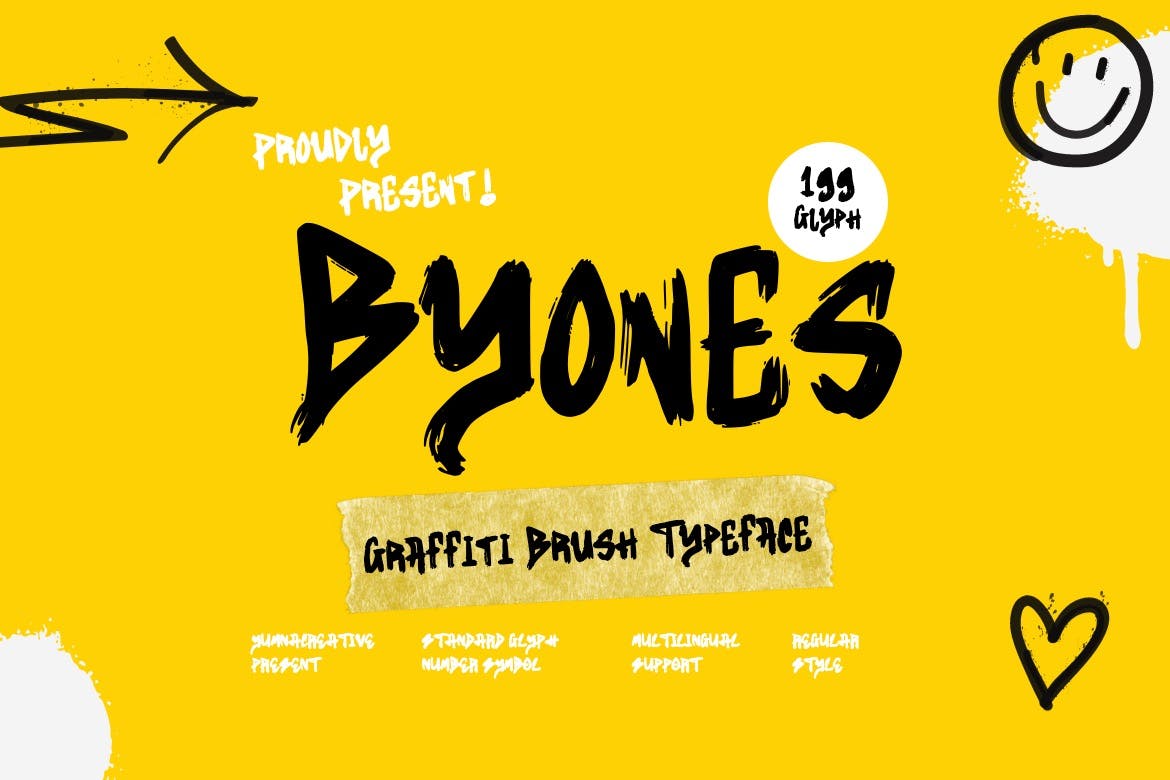
Byones - Graffiti Brush Font
The Byones - Graffiti Brush Font is perfect for street art murals, urban music branding, edgy fashion campaigns, underground event graphics, hip-hop album covers, skateboard designs, graffiti-style logos, street culture posters, rebellious youth marketing, and alternative lifestyle brands.
What makes the Byones - Graffiti Brush Font so exciting is its dynamic fusion of authentic graffiti culture with expressive brush stroke energy that creates an irresistible combination of street credibility and artistic spontaneity. This striking typeface features bold brush movements, raw paint textures, and aggressive character formations that perfectly capture the unfiltered creativity and rebellious spirit of underground street art. The font's energetic personality and authentic graffiti heritage make it an exceptional choice for brands seeking to communicate urban authenticity, creative rebellion, and genuine street culture connection with powerful visual impact.
The Byones - Graffiti Brush Font family includes brush variations and graffiti alternates, featuring multiple stroke intensities, paint splatter effects, and street-inspired character options. Each variation maintains the signature graffiti brush appeal while offering different levels of artistic chaos and urban authenticity, giving designers extensive creative possibilities for crafting bold street expressions and authentic urban communications.
This exceptional Byones - Graffiti Brush Font Free Download represents the perfect street art typography solution for designers who need authentic graffiti brush aesthetics that resonate with urban culture and creative communities. Whether you're developing underground music brands, creating street art campaigns, or designing rebellious youth marketing materials, this versatile graffiti brush font delivers compelling results that connect with audiences seeking genuine street authenticity and creative freedom.
The powerful brush characteristics of Byones - Graffiti Brush Font showcase masterful street art typography design, with each letter featuring natural paint flow variations and urban texture elements that enhance its street credibility and artistic authenticity. The font's comprehensive character set includes uppercase and lowercase letters, numerals, graffiti-style punctuation, and street symbols, ensuring complete functionality for diverse urban projects and international street art applications.
Expertly crafted for both digital and print street art applications, this remarkable font maintains its authentic graffiti brush character and urban artistic integrity across all sizes and formats. From large-scale wall art to detailed street merchandise, Byones - Graffiti Brush Font adapts powerfully to any urban design challenge while preserving its distinctive street art personality and authentic graffiti culture appeal.